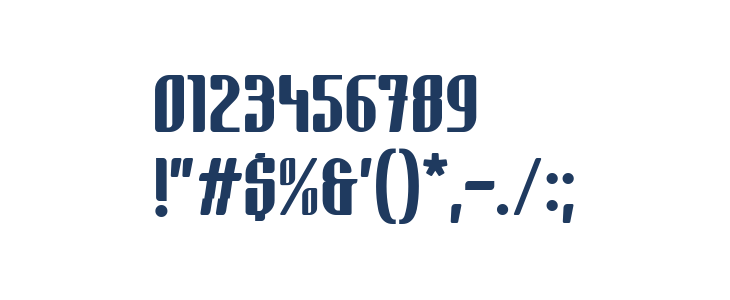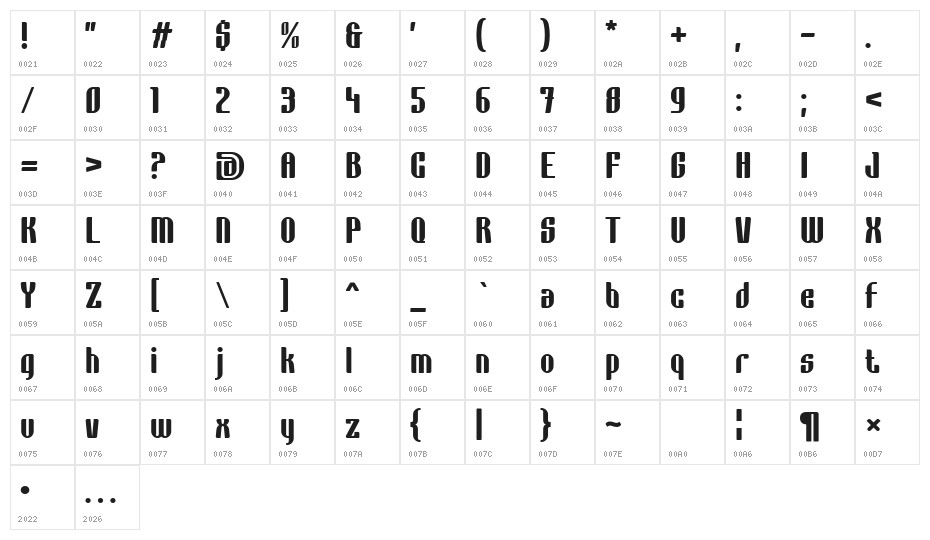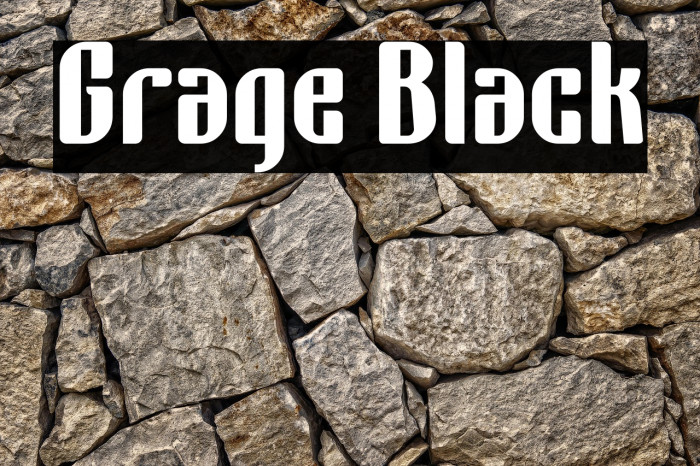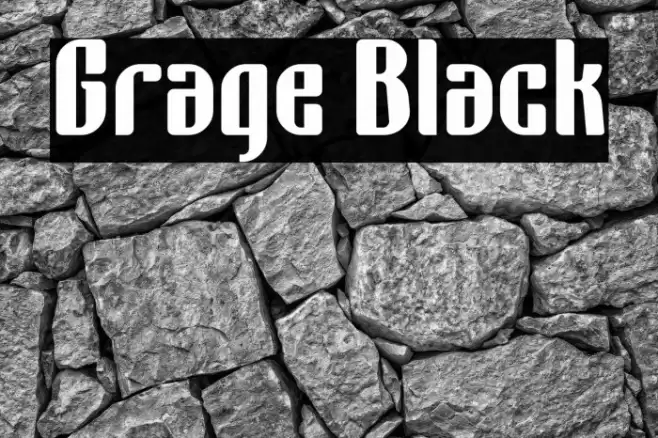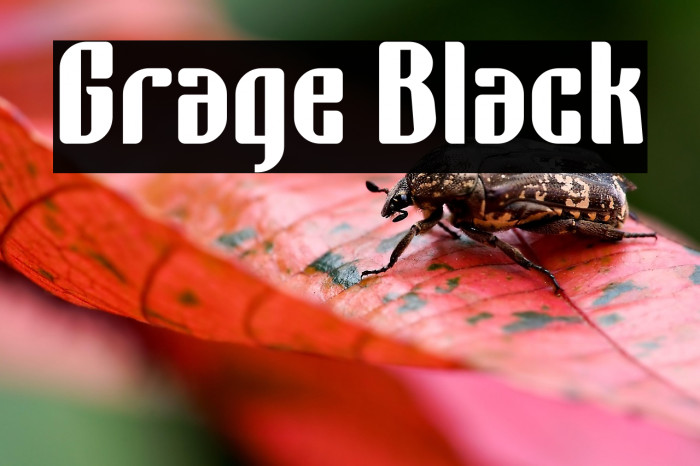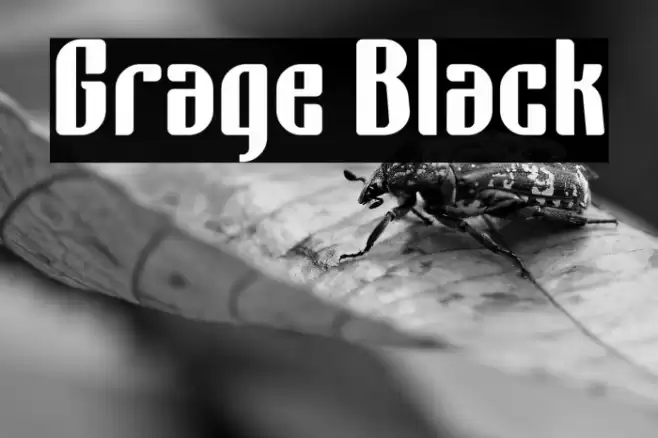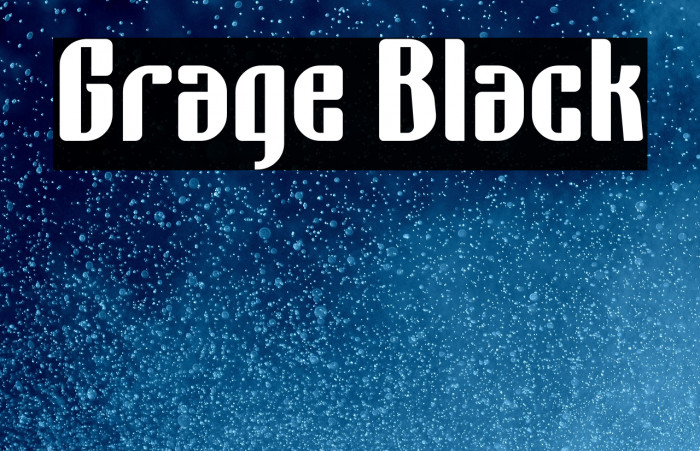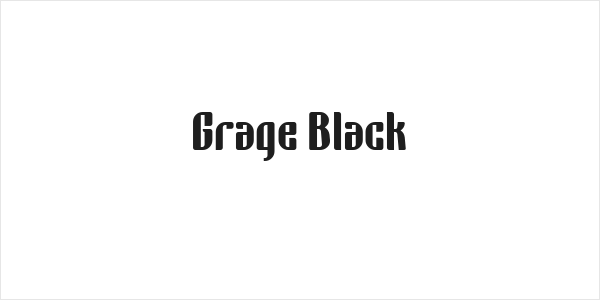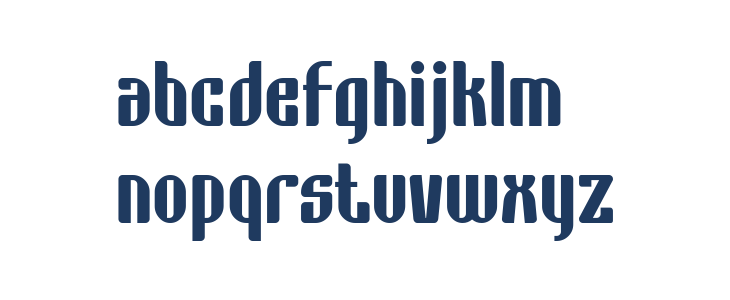
Grage Black Font
Grage Black Description
This font features a bold and striking design with thick, uniform strokes that create a strong visual impact. The characters are wide and have a slightly condensed appearance, giving them a robust and sturdy look. The uppercase letters are particularly tall and imposing, while the lowercase letters maintain a consistent height that complements the overall design. The numerals are equally bold, ensuring readability and emphasis. Special characters are designed with the same boldness, making them stand out effectively. This font's style is modern and assertive, suitable for projects that require a strong visual presence.